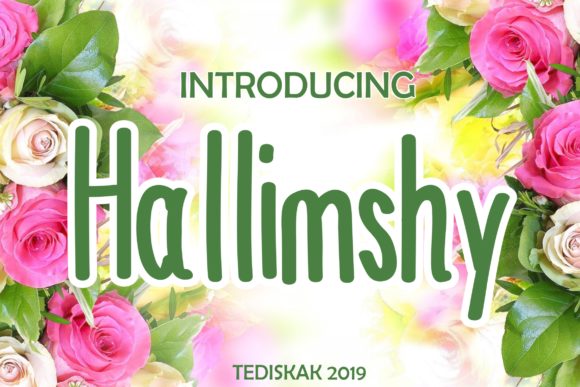
Immerse yourself in the vibrant world of Hallimshy, a whimsical color font that sparks joy and ignites imagination. Its captivating hues and playful characters create a unique aesthetic, perfect for adding a touch of magic to your creative projects.
Hallimshy is more than just a font; it's an experience. With its enchanting charm, it transports you to a realm of wonder and delight. Each letter is a masterpiece, meticulously crafted to evoke emotions and leave a lasting impression.
Unleash your creativity and let Hallimshy work its magic. Whether you're designing invitations, creating social media posts, or crafting logos, this font adds a touch of enchantment to every project. Its versatility knows no bounds, allowing you to express yourself in countless ways.
Step into the realm of Hallimshy, where colors dance and letters come alive. Let your imagination soar and create something truly extraordinary.